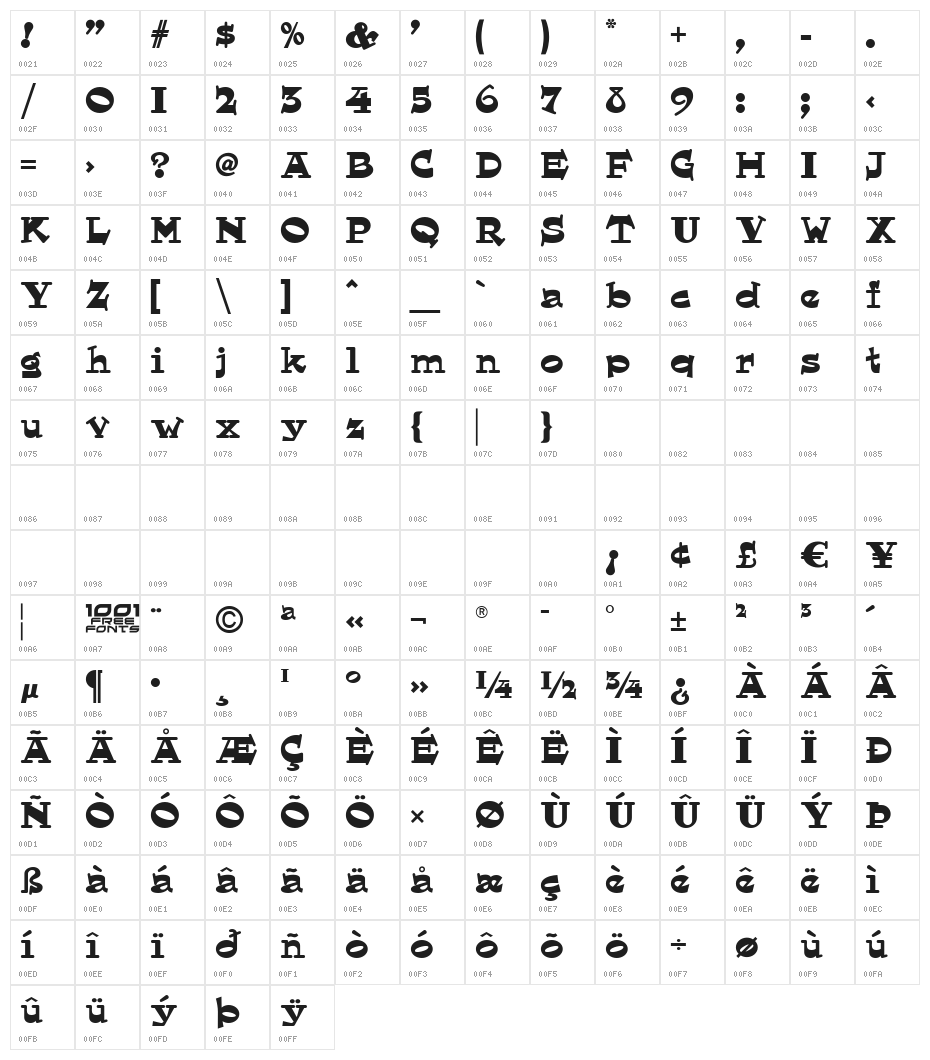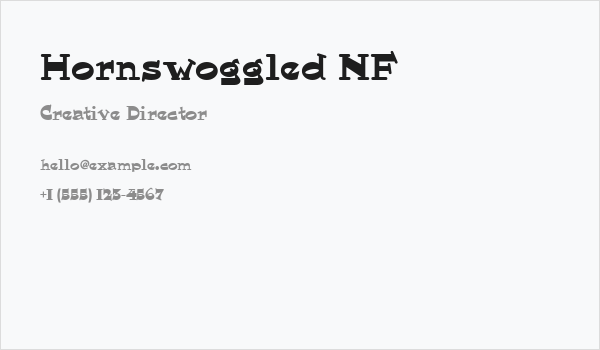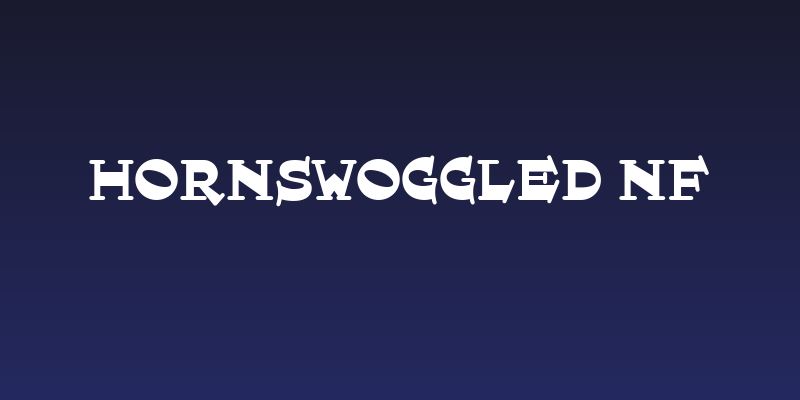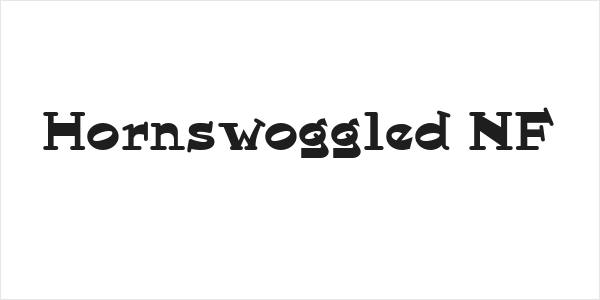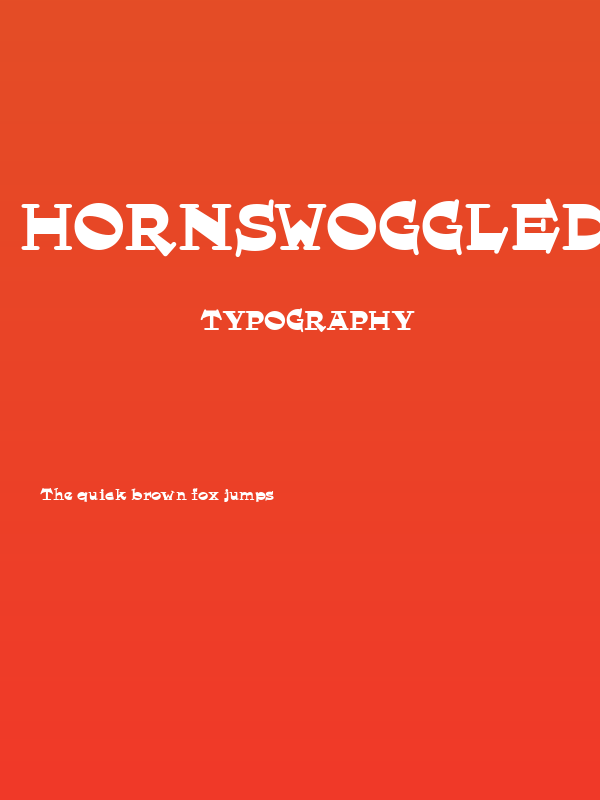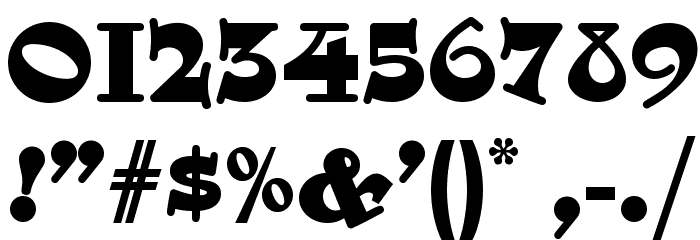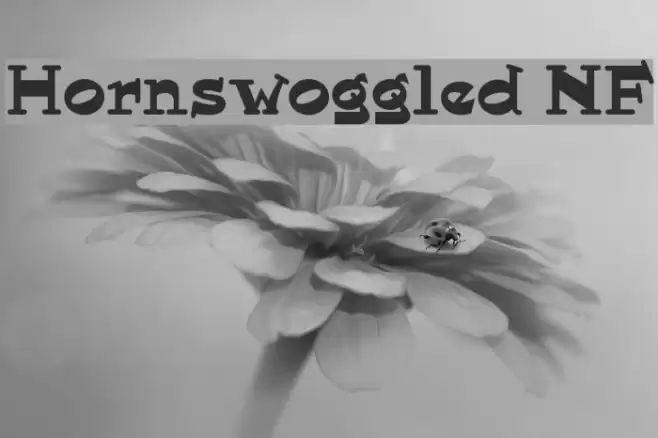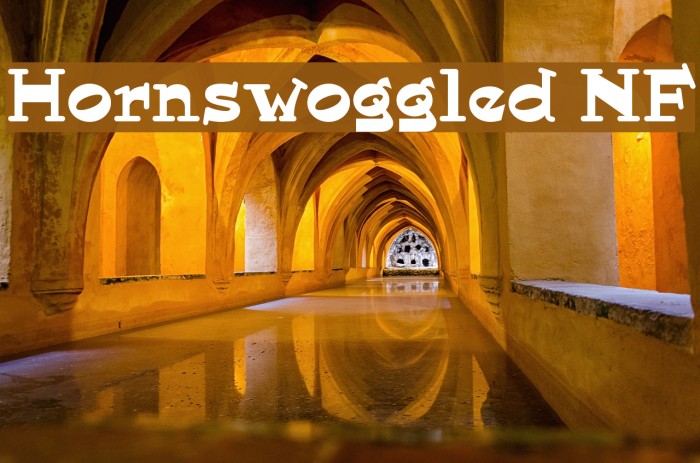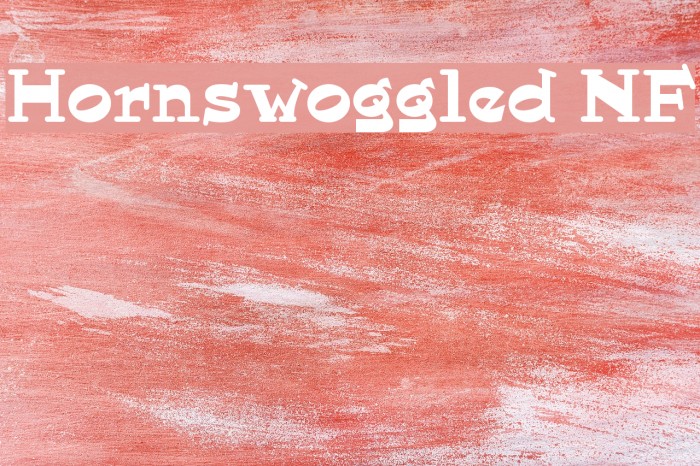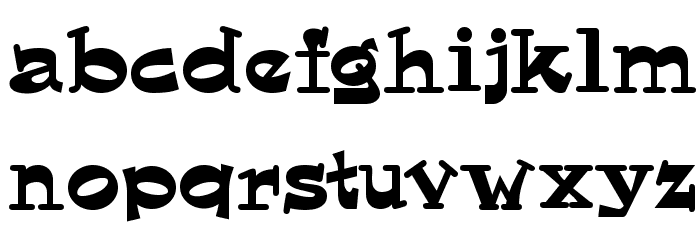
Hornswoggled NF Font
Hornswoggled NF Description
This font features a bold and playful design with a distinctive vintage flair. The characters are characterized by their thick strokes and unique serifs, giving them a whimsical and slightly quirky appearance. The uppercase letters are robust and commanding, while the lowercase letters maintain a consistent style with a touch of elegance. Numbers are bold and easily readable, complementing the overall aesthetic. Special characters are creatively designed, adding to the font's charm. This font is perfect for projects that require a fun and eye-catching typeface.
| Overall Style | Vintage |
| Proposed Projects | Ideal for posters, retro-themed designs, branding, and playful invitations. |